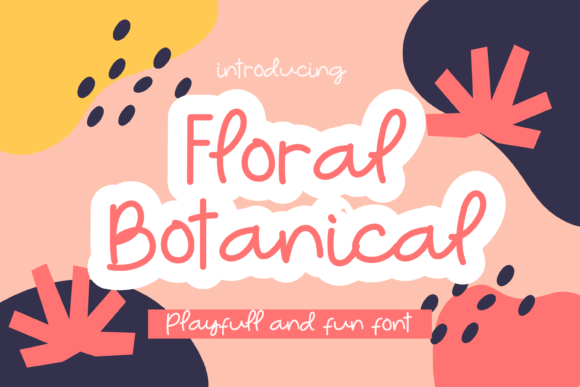
Dive into the enchanting world of Floral Botanical – a captivating handwritten font that exudes rustic charm and warmth. Created by the skilled artisans at Ongtype co., this font family is designed to add a touch of the natural world to your designs, embracing the beauty of organic forms.
Floral Botanical's sweeping strokes and graceful curves evoke the delicate petals and blooming buds of a summer garden. Each letter dances across the page with an effortless elegance, captivating your audience with its authentic and inviting presence. Whether you're crafting handwritten notes, designing heartfelt invitations, or creating logos that radiate warmth, Floral Botanical is the perfect choice to infuse your projects with a touch of nature's allure.
Let Floral Botanical weave its magic into your designs, transforming them into captivating expressions of creativity and emotion. Embrace the beauty of imperfection and the charm of handmade artistry, and let your words blossom on the page with this enchanting font family.